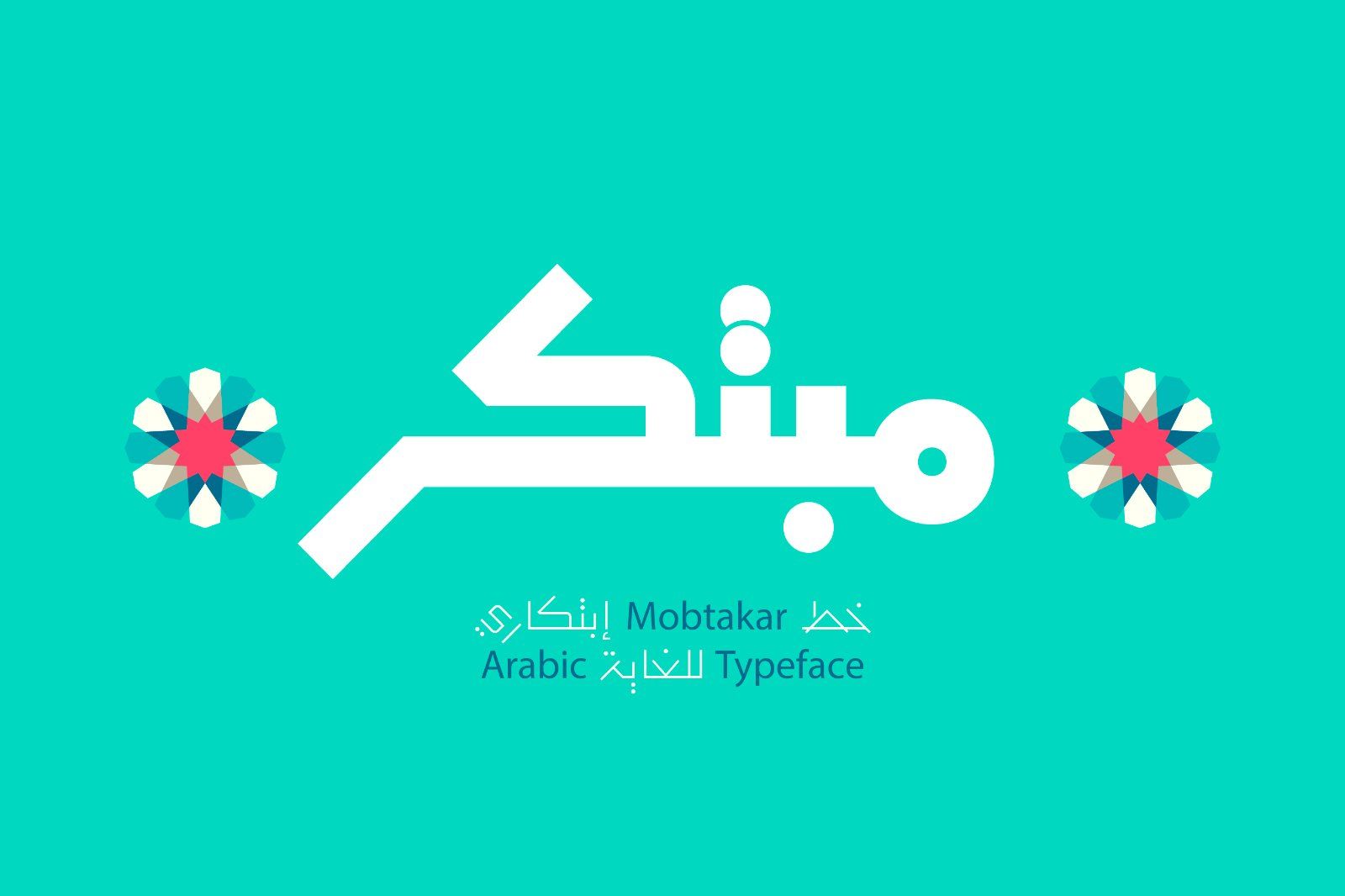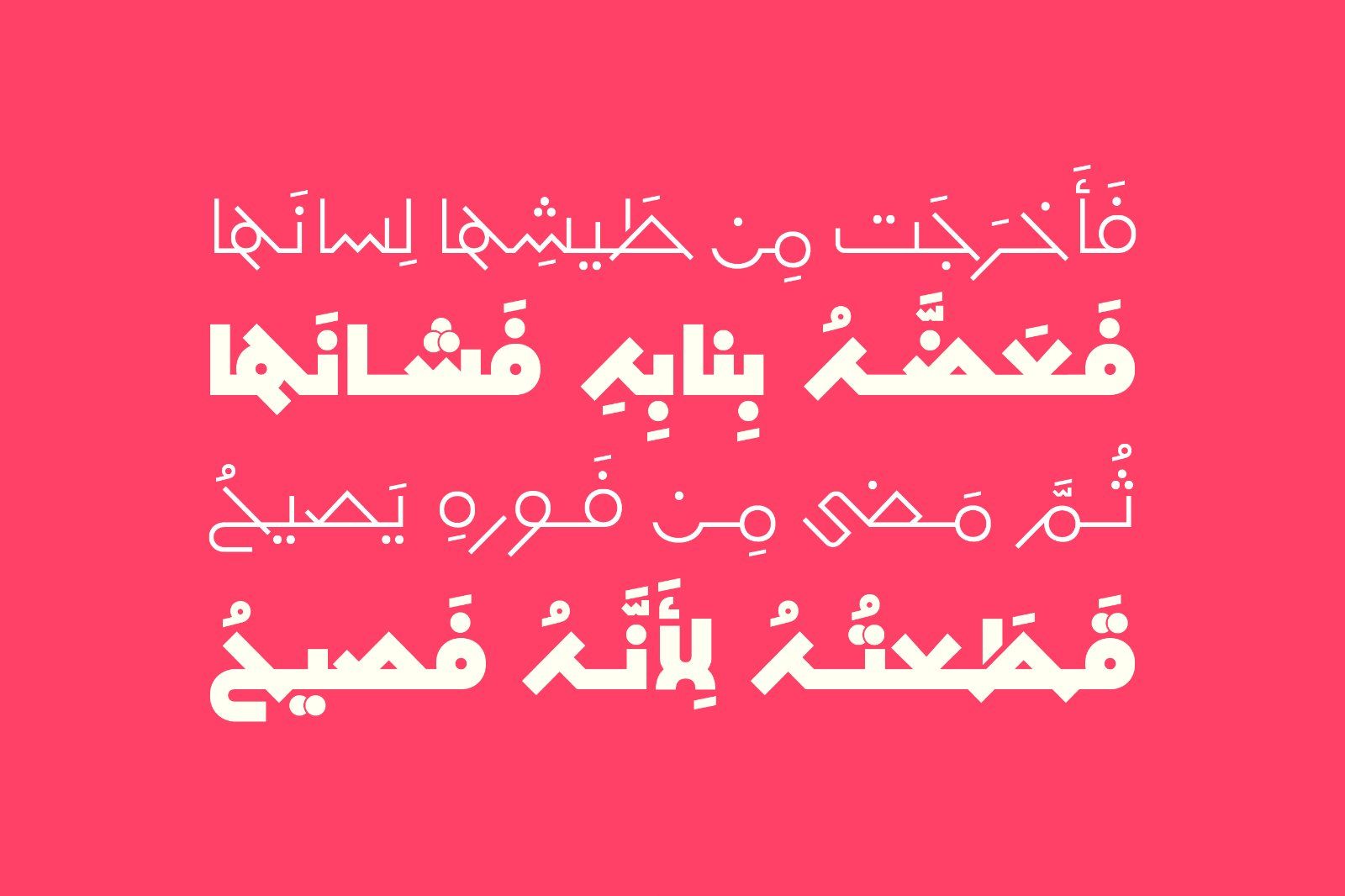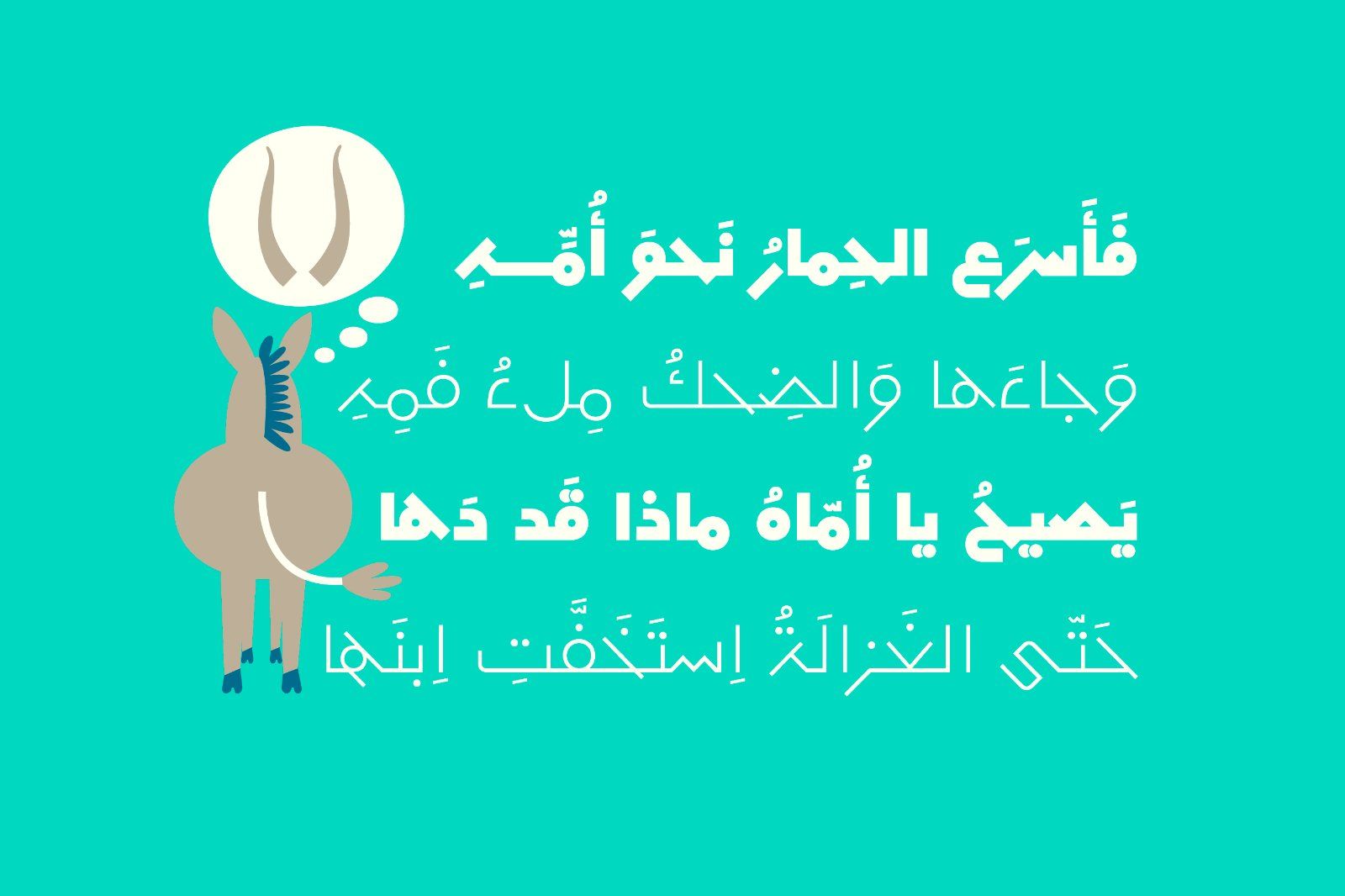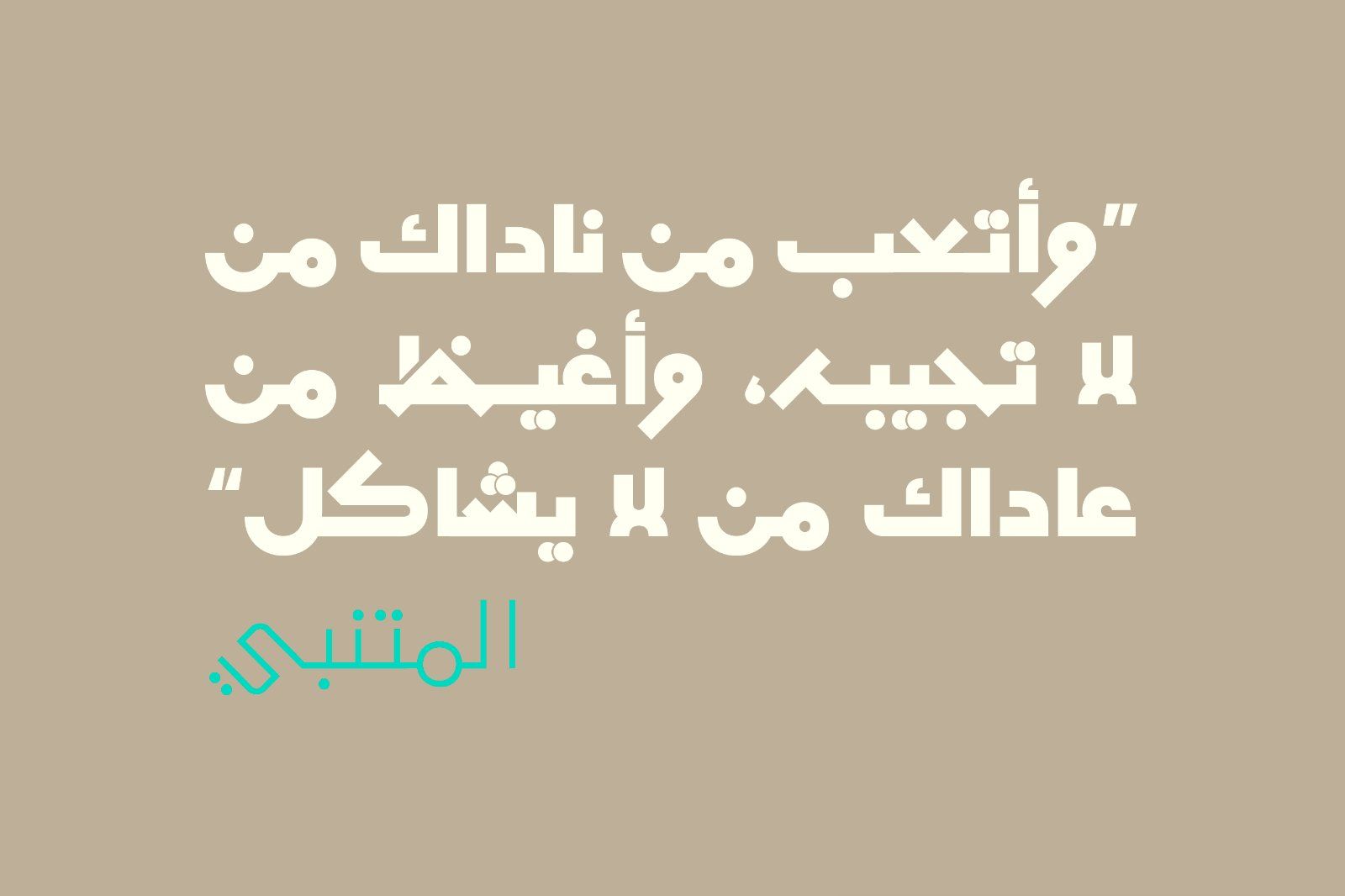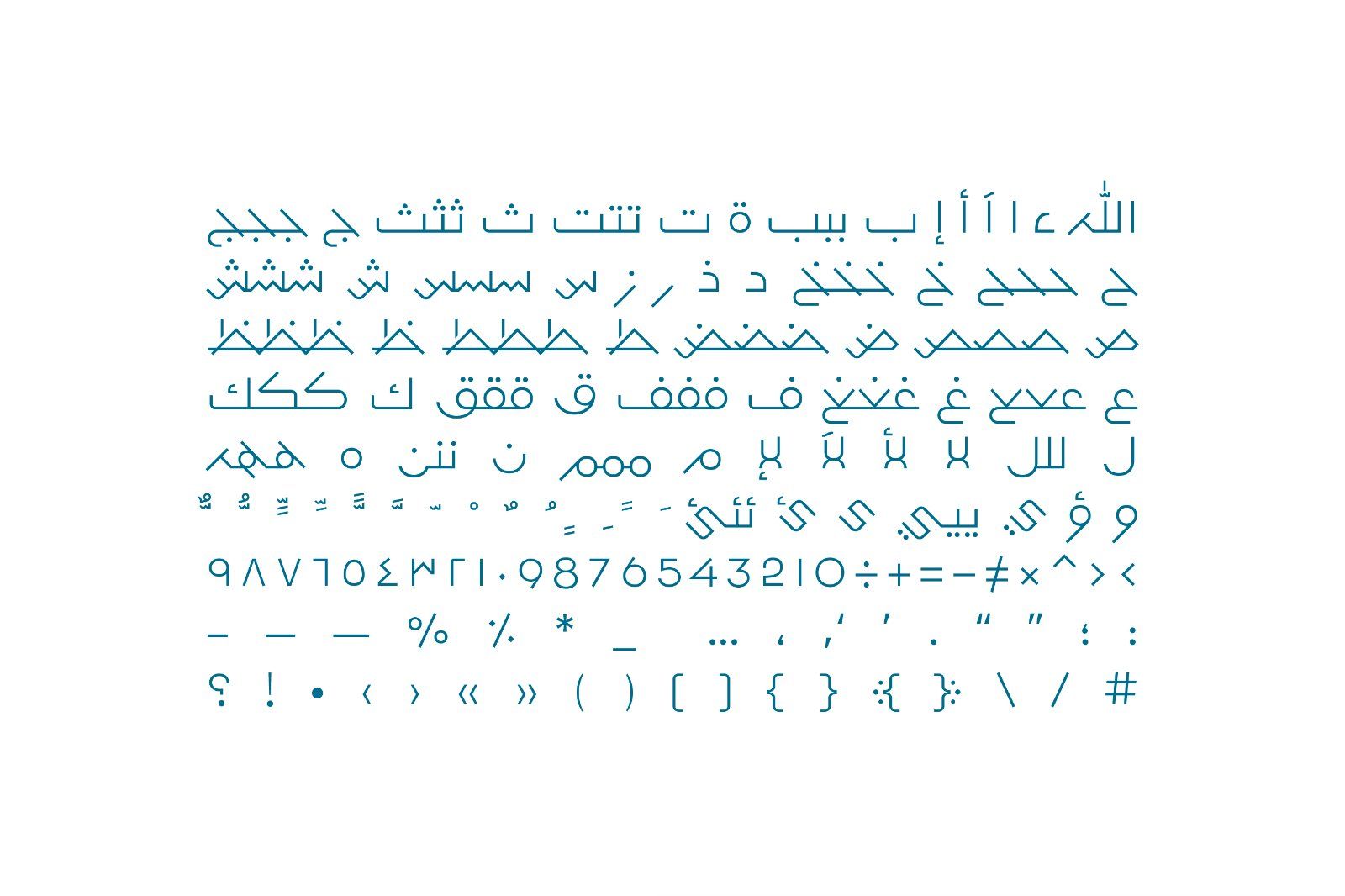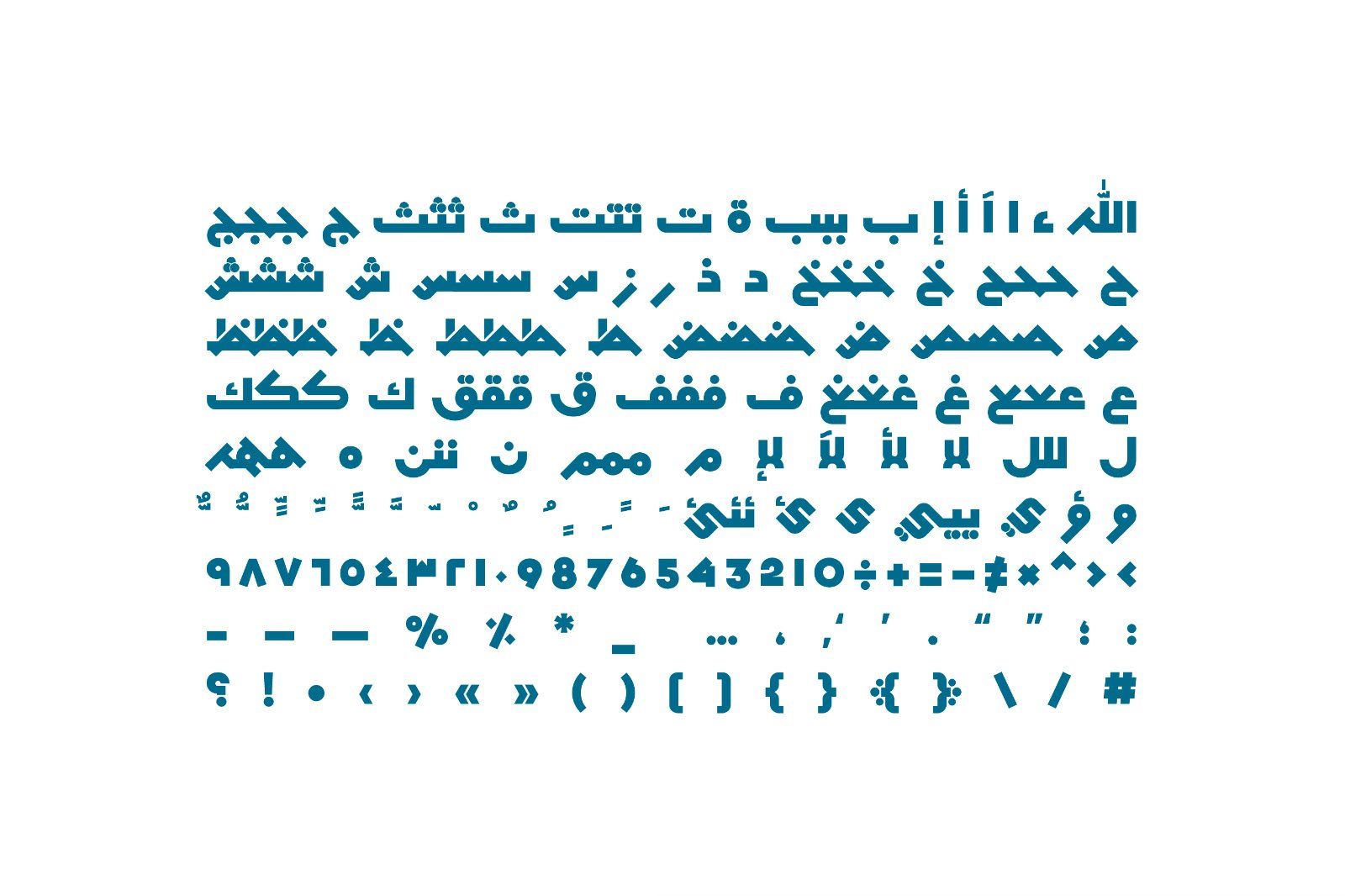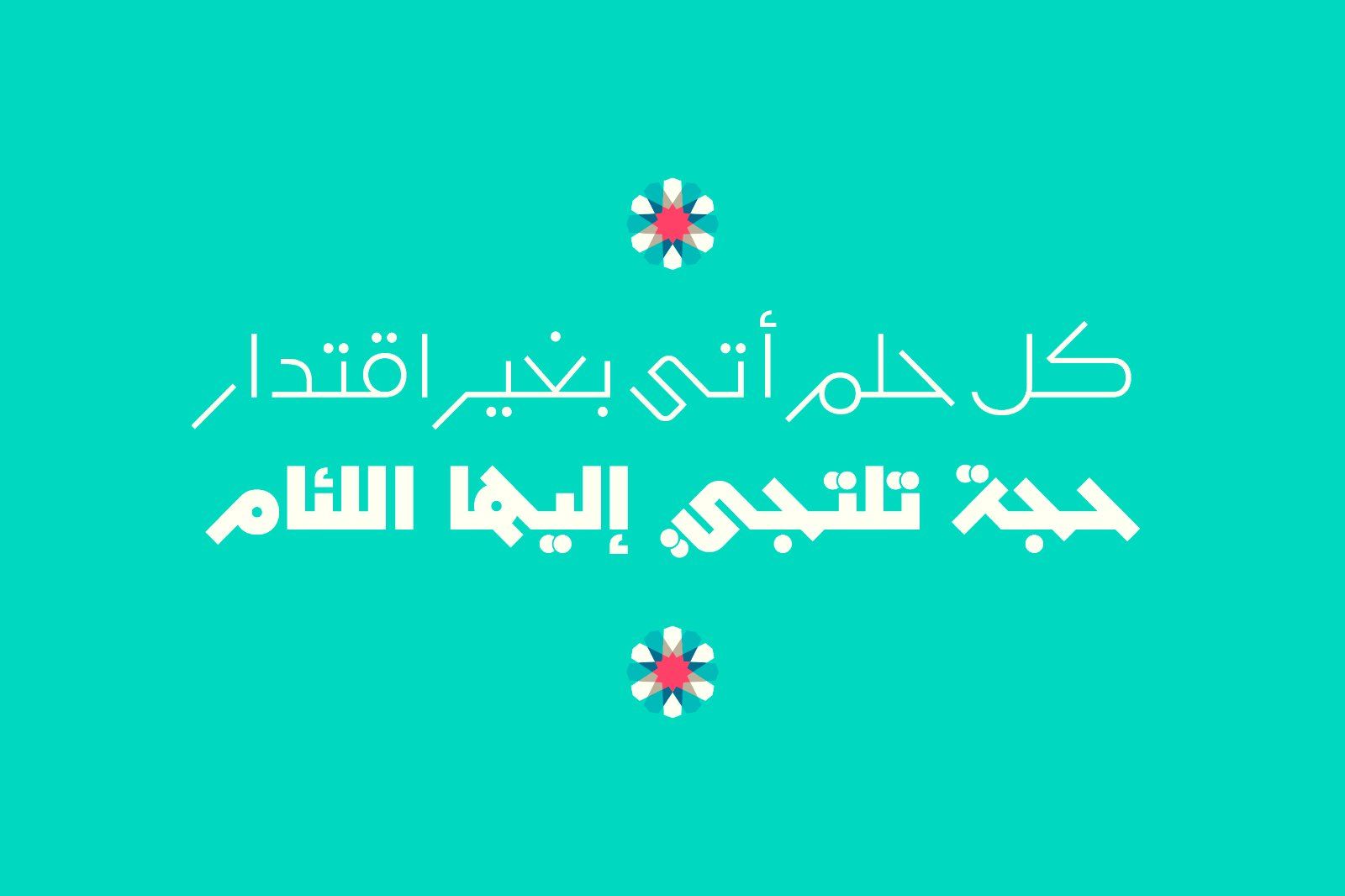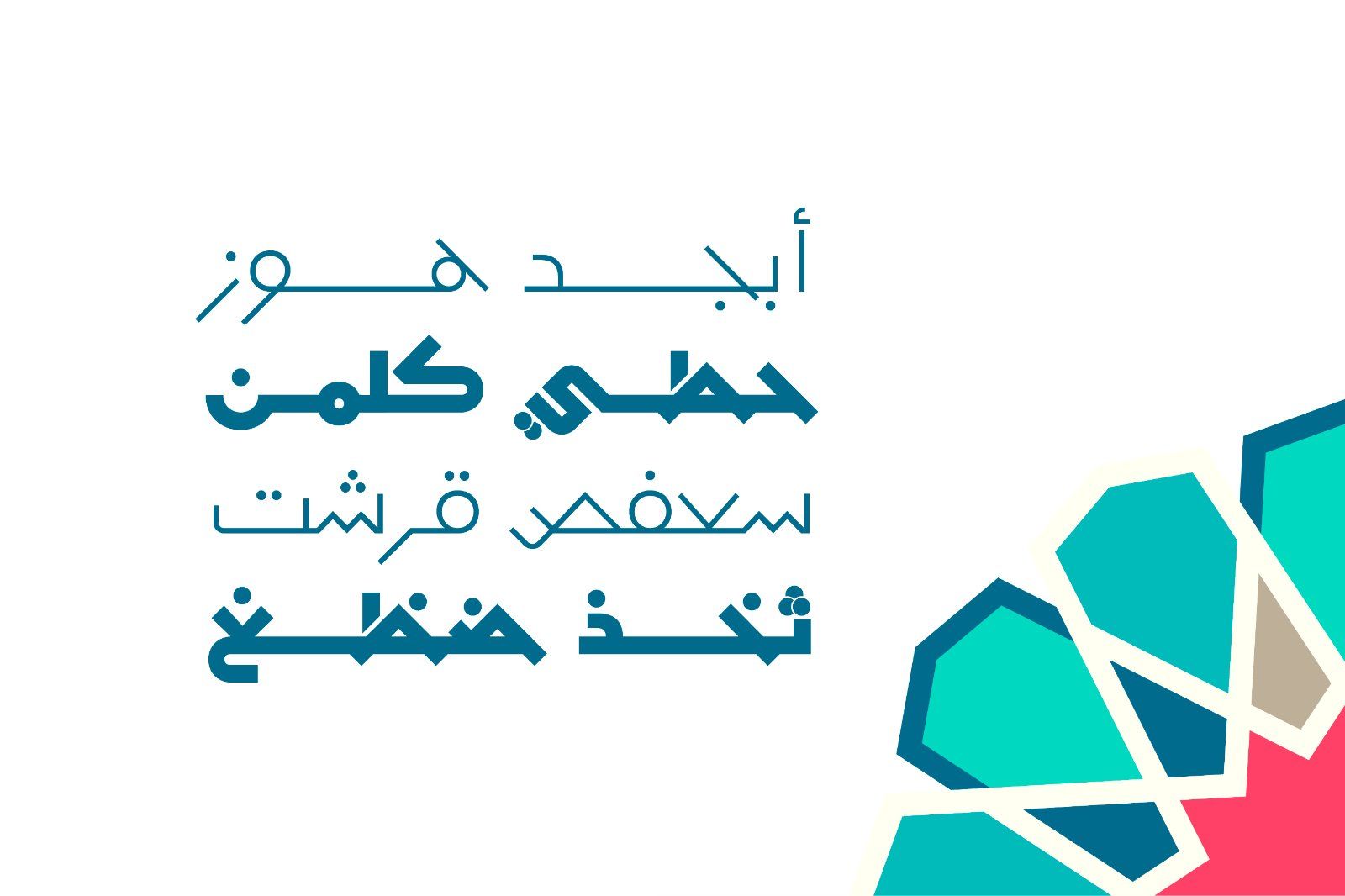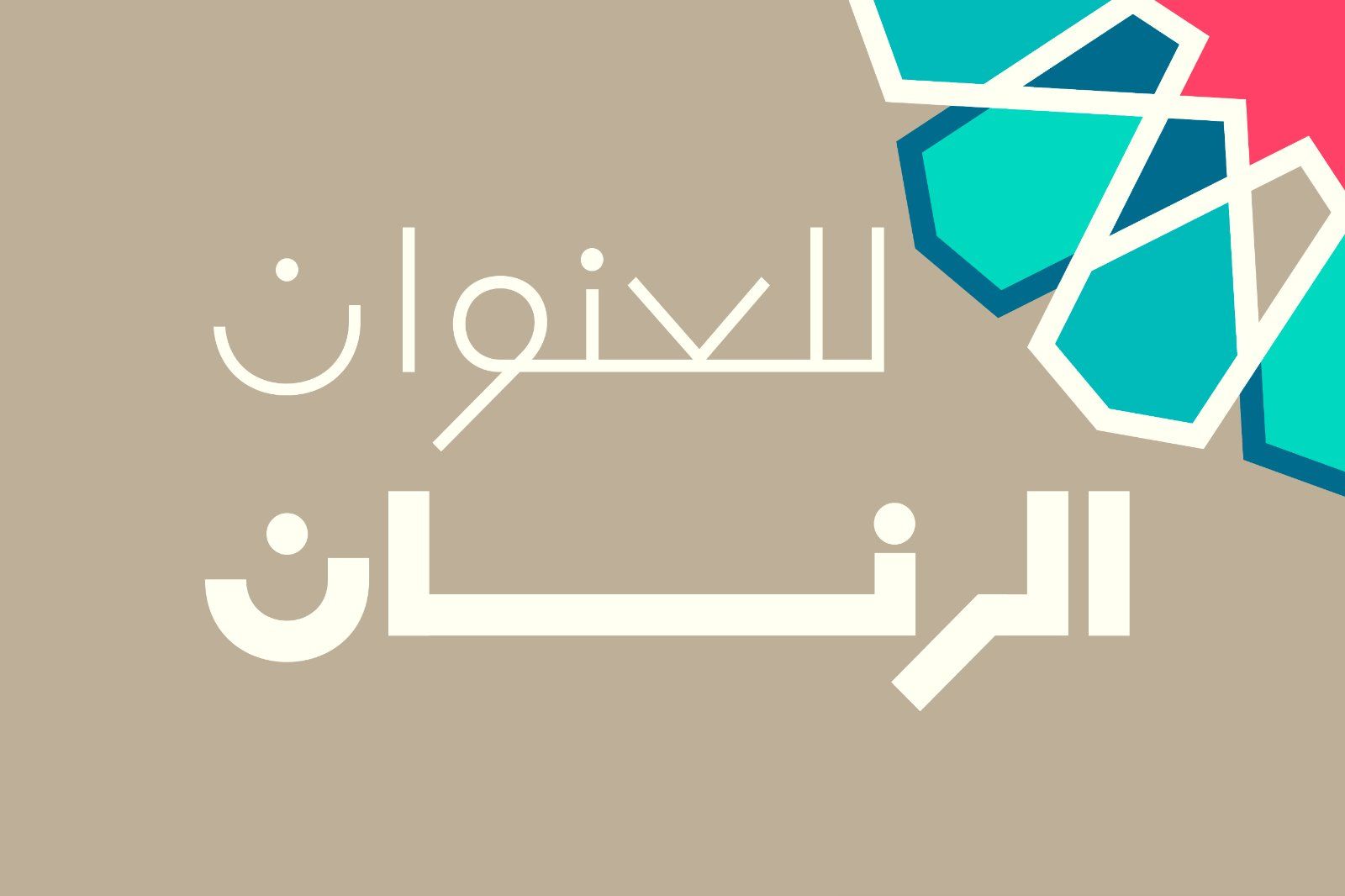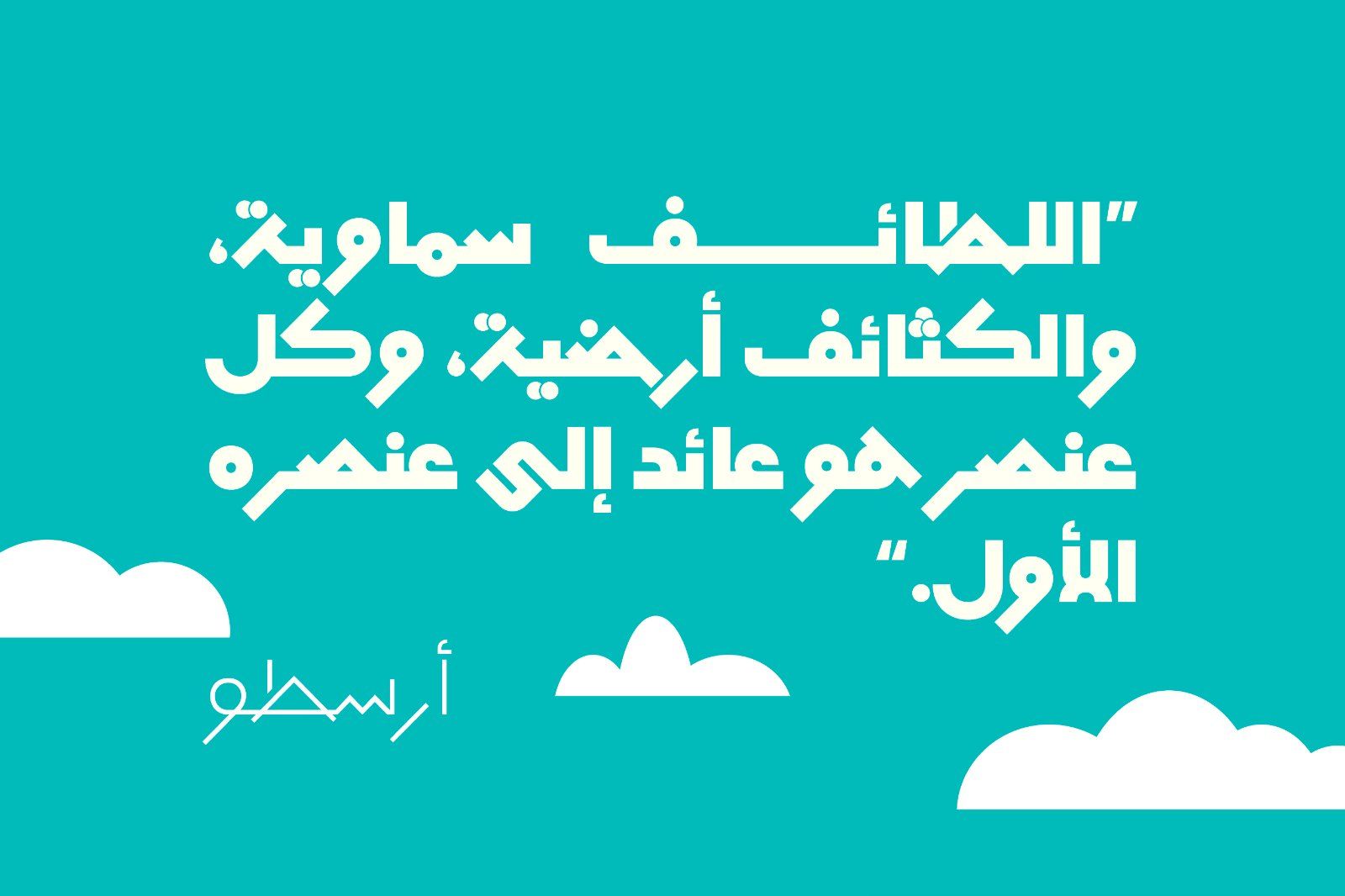
Mobtakar (Arabic for ‘Innovative’) is a display typeface featuring solid, geometric letterforms that blend authenticity with modernity. Its distinctive style makes it an excellent companion for illustrations, geometric patterns, and decorative motifs. The typeface includes two weights (Thin and Fat), and is ideal for web and print design, mobile applications, and UI/UX Arabic typography.